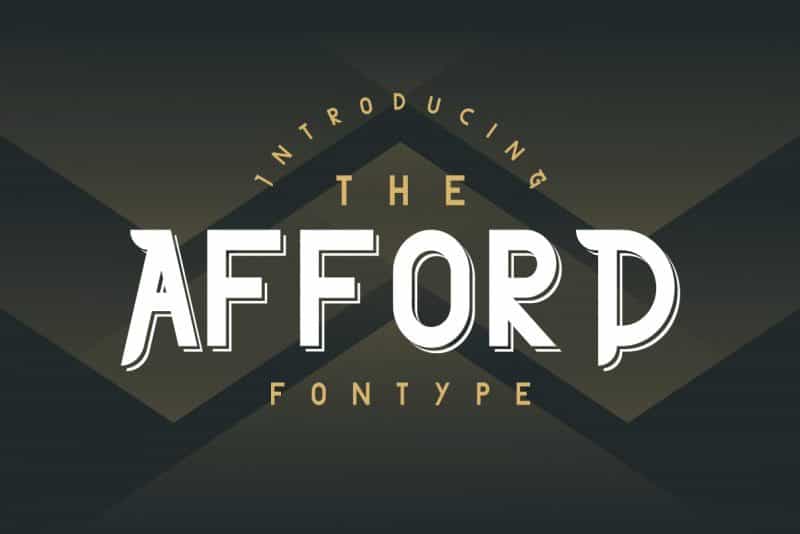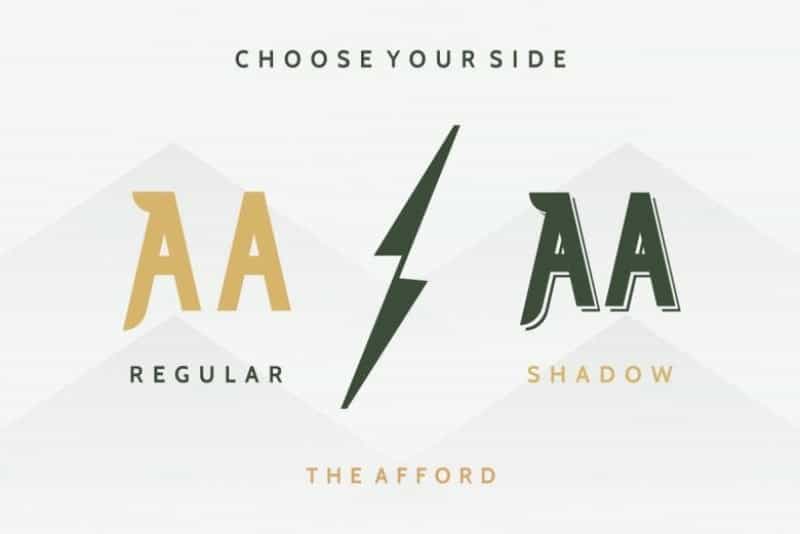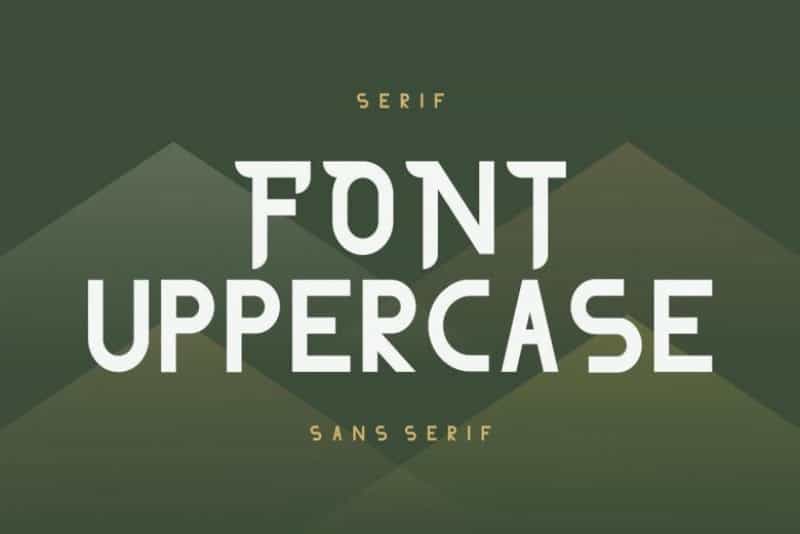
Discover The Afford Display Font, part of the Sans Serif Serif Display collection—a versatile and unique font perfect for adding a personal touch to your projects. Download it for free and enjoy crafting designs with style, from invitations to social media posts. This font is available exclusively for personal use, giving you the freedom to create without limits. Unlock your creativity with The Afford Display Font today!
The idea is to design a “creepy”, “Mystic” font but in a modern manner. It will be great for branding, logotype, stationery, business card, signage, flyer, brochure, paper etc. There are many industries that is suitable for this font : musician, entertainment, band, museum, education, kids, teenager, kindergarten and so on.